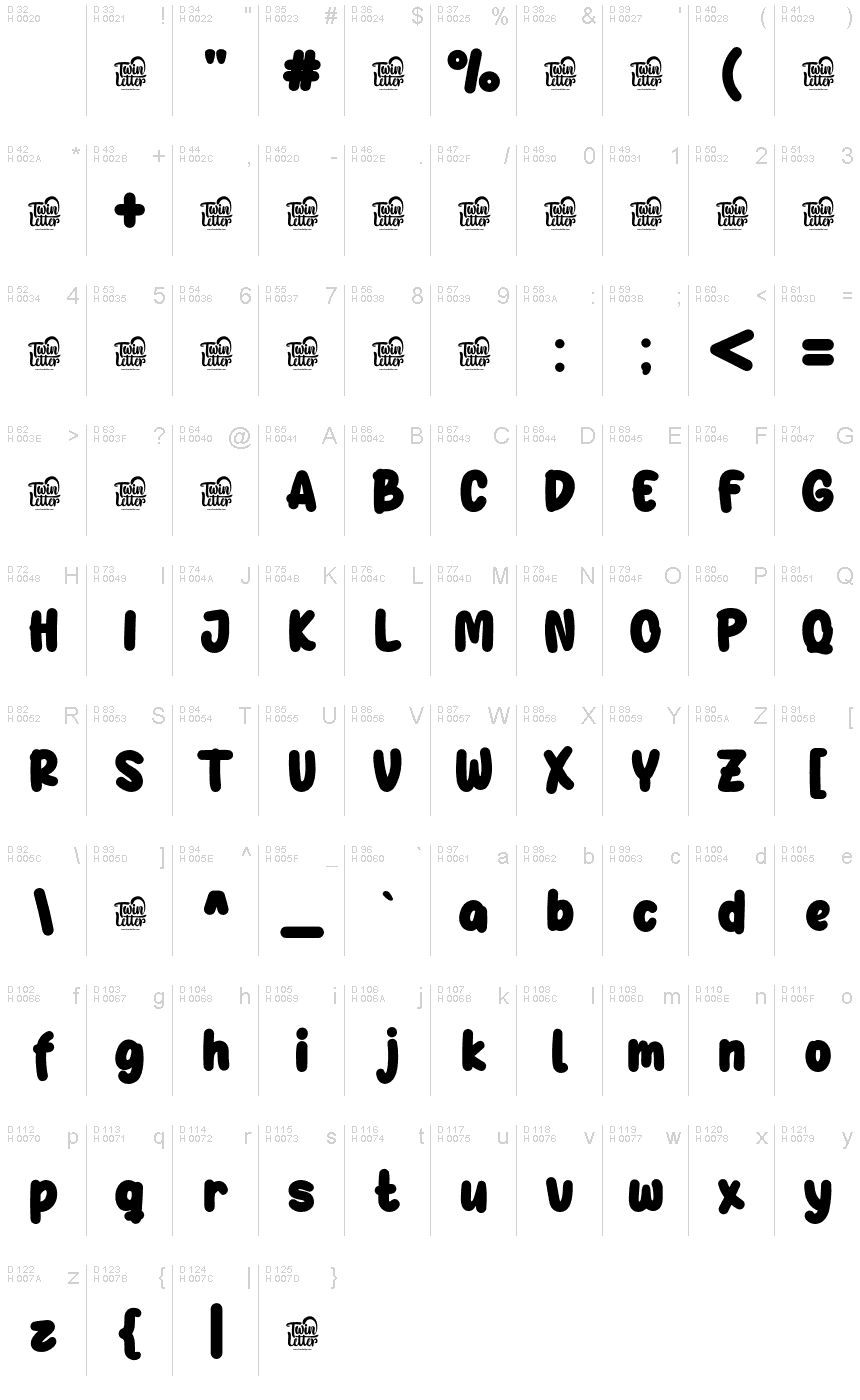
GefuhBold
Gefuh семейство состоит из 3 шрифты
With Gefuh Bold, twinletter has crafted a truly unique handwritten font that is sure to make your projects stand out. This extra-bold typeface boasts organic curves and playful strokes, giving your text a charmingly hand-drawn feel. Whether you're designing invitations, branding materials, or social media graphics, Gefuh Bold's expressive personality will help your message shine. From bold headlines to eye-catching logos, this font family is suitable for a wide range of creative projects. Embrace the whimsical nature of Gefuh Bold and give your designs an extra dose of character today!